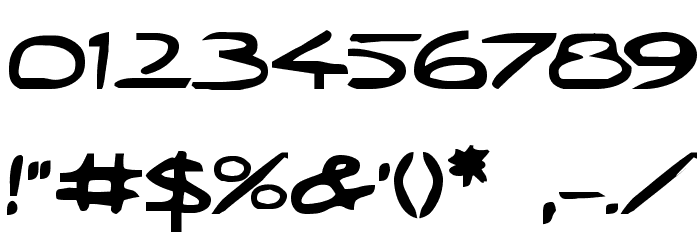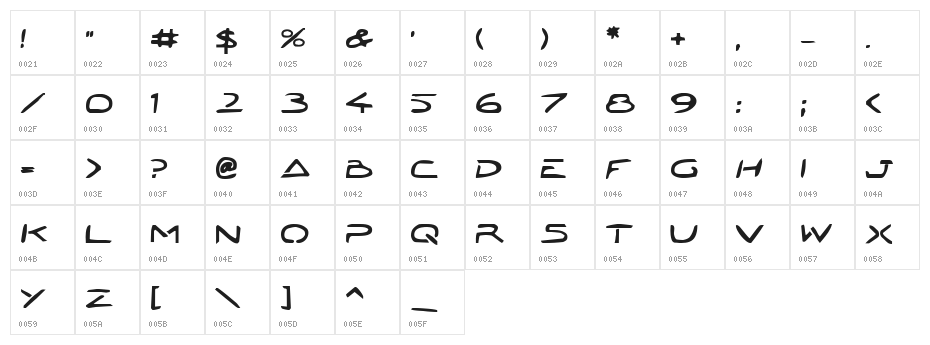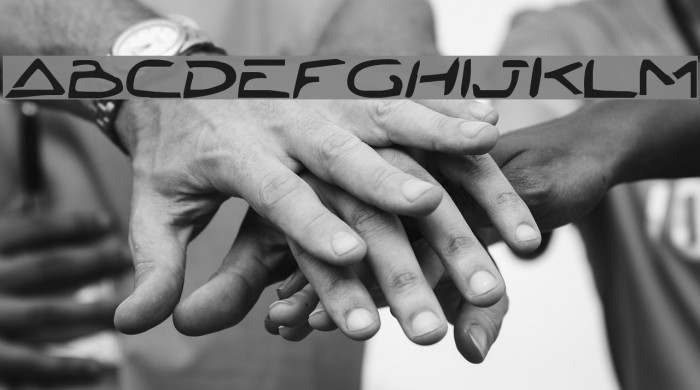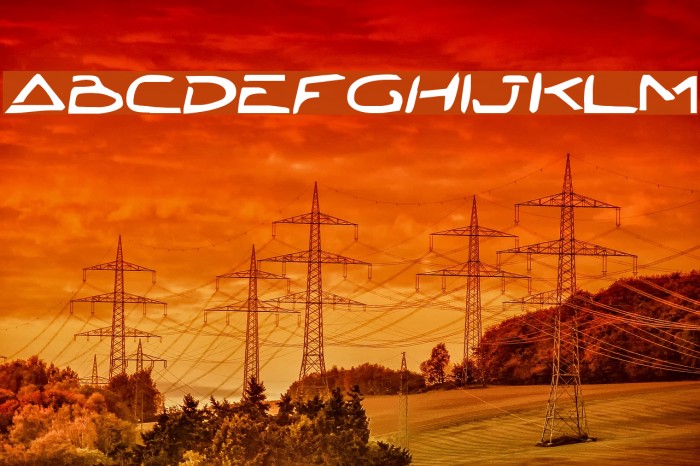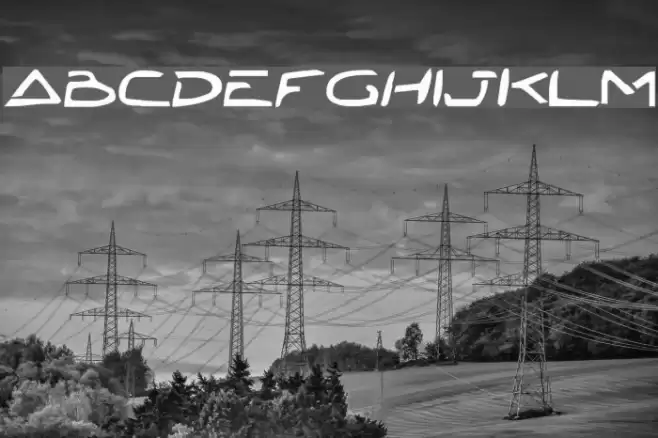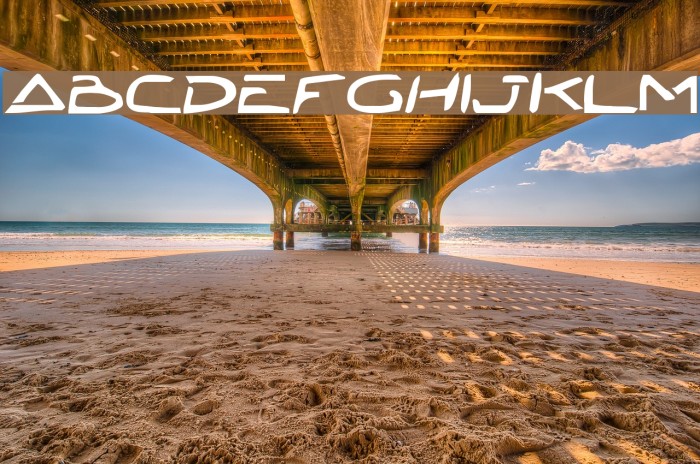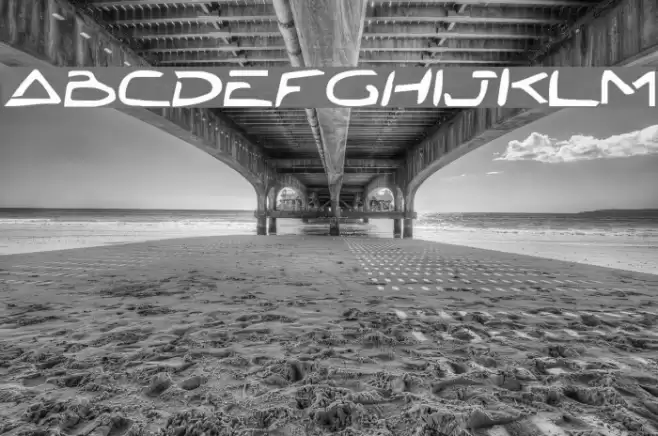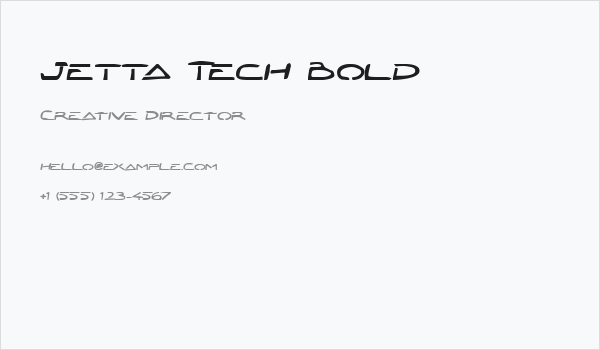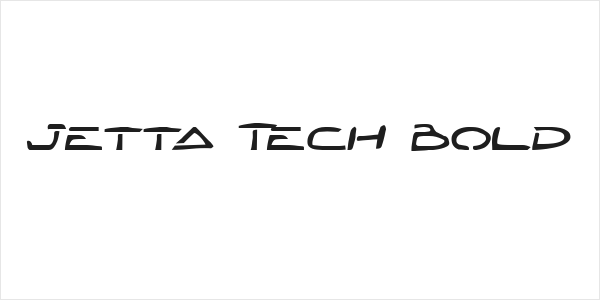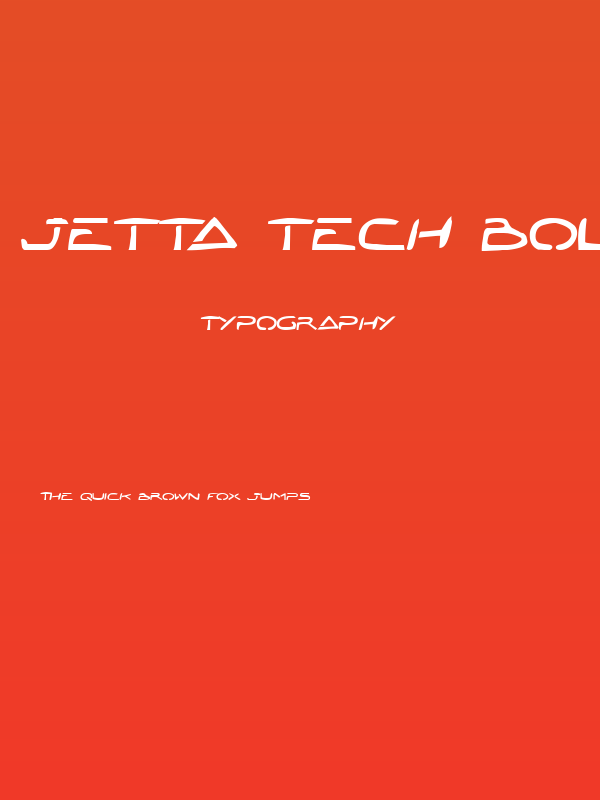
Jetta Tech Bold Font
Jetta Tech Bold Description
This font features a futuristic and sleek design, characterized by its angular and sharp edges. The letters are slightly slanted, giving a sense of motion and speed. The uppercase and lowercase letters maintain a consistent style, with a unique geometric flair that sets it apart. The numbers and special characters follow the same design principles, ensuring uniformity across all glyphs. This font is bold and eye-catching, making it ideal for projects that require a modern and dynamic aesthetic.